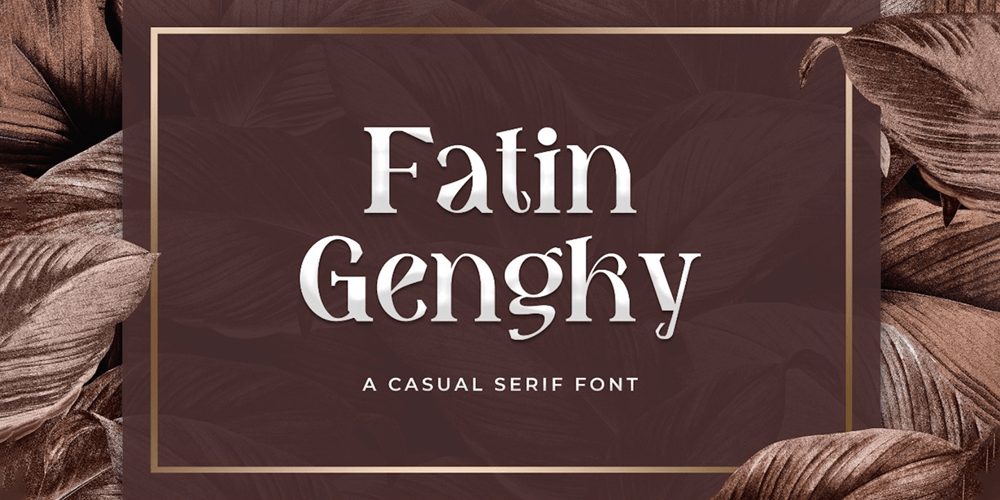
Fatin Gengky Font Family was designed by Virgiawan Listanto and published by Stringlabs Creative Studio. Fatin Gengky contains 2 styles and family package options. Fatin Gengky is an authentic and neat serif font. It can easily be matched to an incredibly large set of projects, so add it to your creative ideas and notice how it makes them stand out!